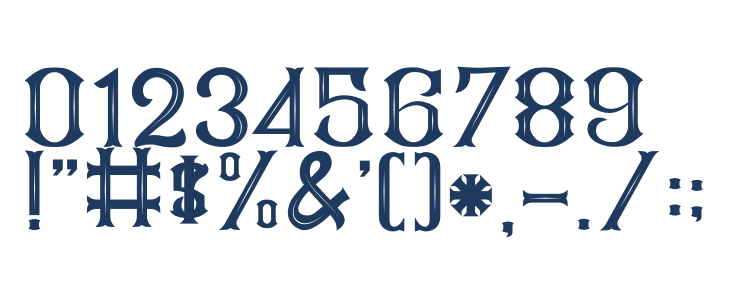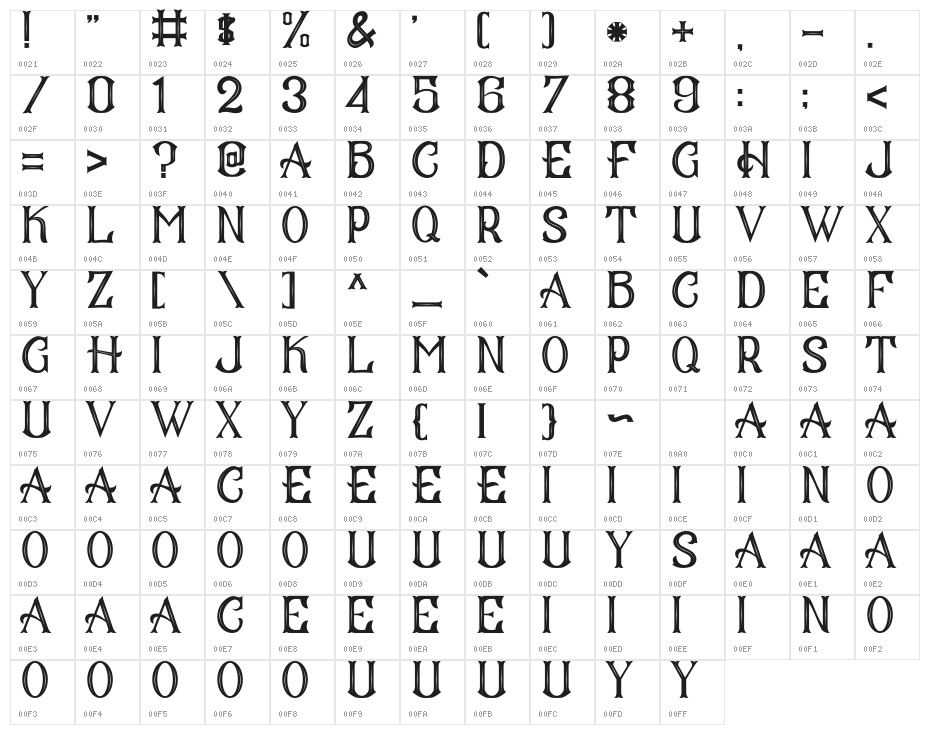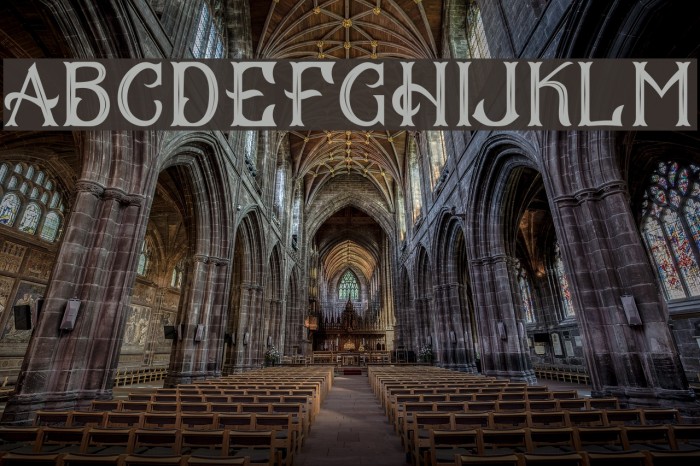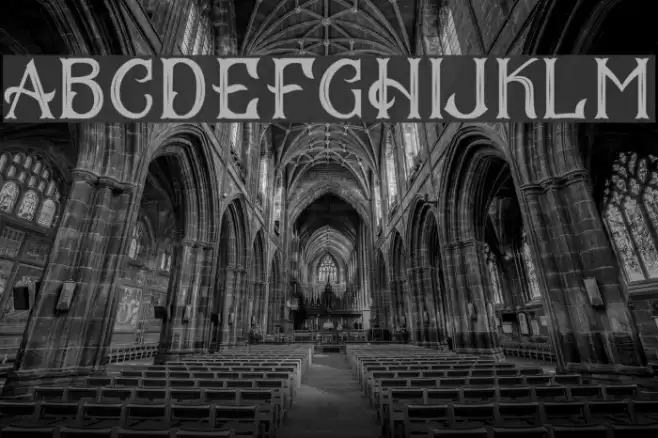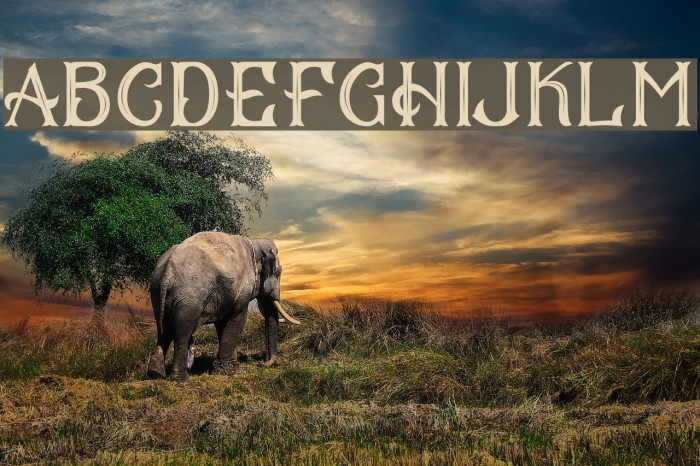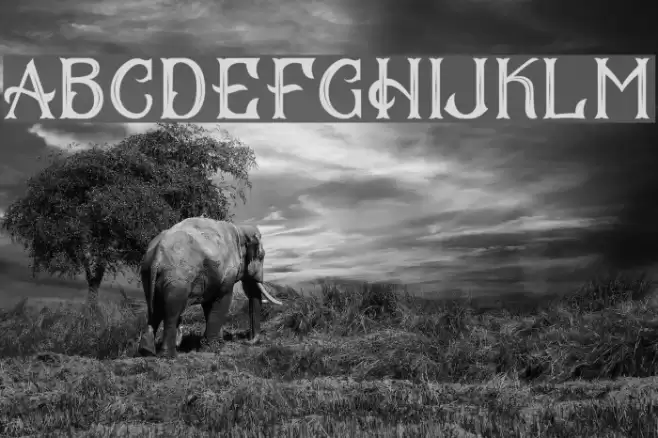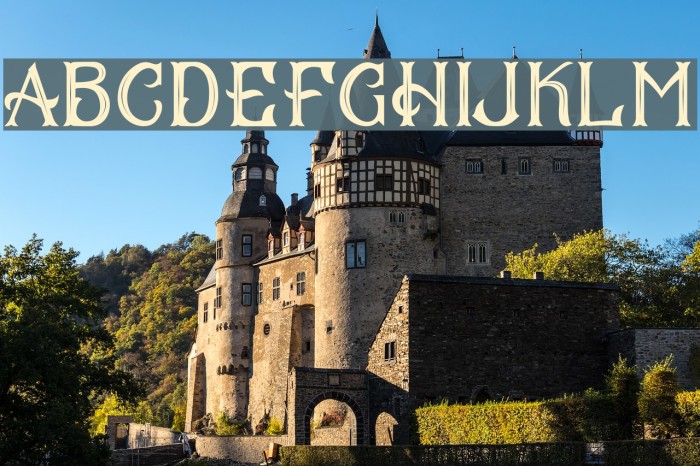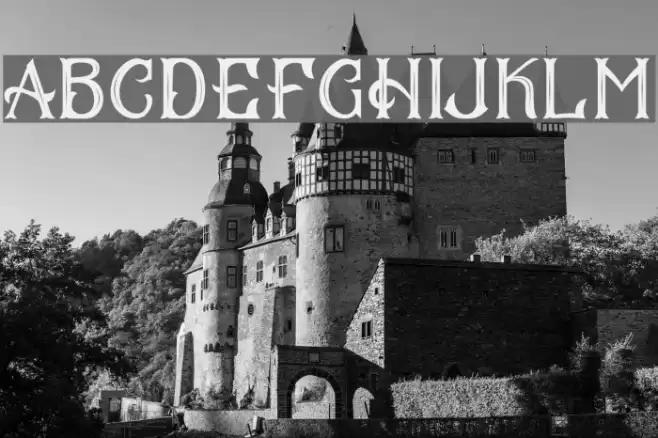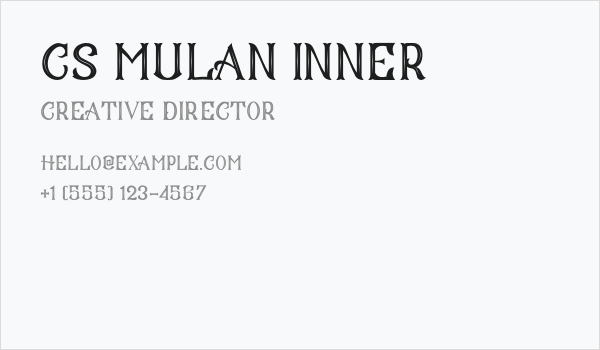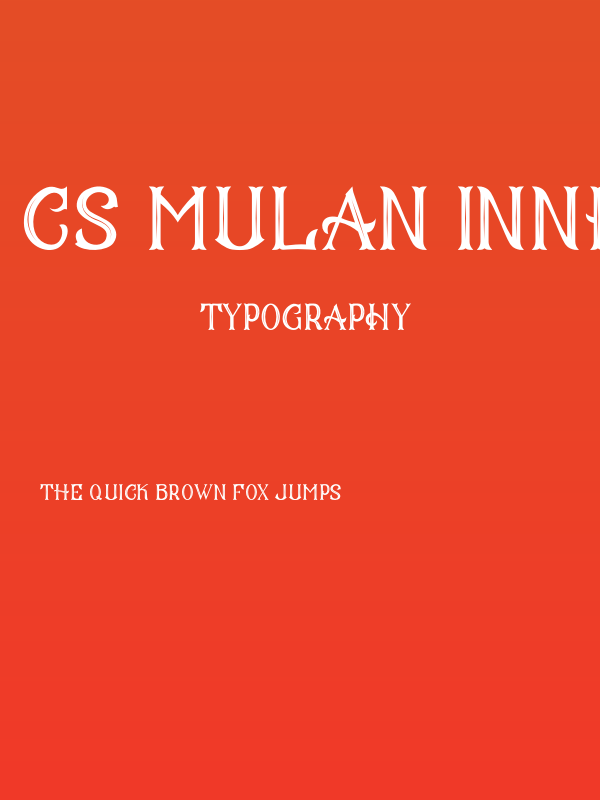
CS Mulan Inner Font
CS Mulan Inner Description
This font features a bold and dramatic style with intricate details that give it a unique, ornamental appearance. The characters are designed with sharp, angular edges and a gothic influence, making them stand out with a strong visual impact. The uppercase and lowercase letters maintain a consistent style, with the uppercase letters being particularly striking due to their elaborate design. The numerals and special characters follow the same aesthetic, ensuring a cohesive look across all elements. This font is ideal for projects that require a touch of elegance and boldness, such as branding, posters, and decorative headings.
| Proposed Projects | Ideal for branding, posters, decorative headings, and any project requiring a bold, elegant touch. |